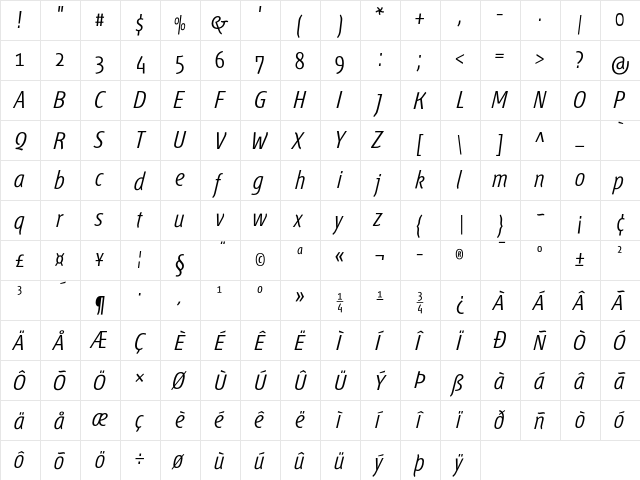
Fontana ND Aa OsF LightItalic Font Preview
Design Context for Fontana ND Aa OsF Typeface
Fontana ND Aa OsF takes a measured approach to typography — its balanced proportions and neutral character make it a reliable workhorse for both digital and print work. The slanted form adds forward momentum and visual energy. Its slender proportions lend an understated elegance to any composition.
Pro Tip: Try Fontana ND Aa OsF for annotation and caption copy alongside an upright companion — the contrast in angle creates a dynamic but ordered typographic system.